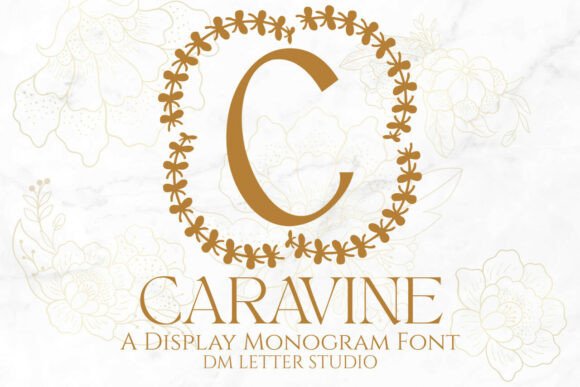
Meet Caravine, the Elegant Monogram Font That’s a Game-Changer for Designers
I’ll never forget the time I was working on a wedding suite project, and my client asked for a custom monogram that would make their special day even more unforgettable. I scoured the internet for the perfect font, but nothing seemed quite right – until I stumbled upon Caravine Monogram Font. This beautiful font turned simple initials into elegant marks that read fast, and I knew I had found the one. In this article, I’ll share my experience with Caravine, its features, and how to make the most of it in your designs.
A Personal Review of Caravine Monogram Font
- ✨ Smooth lines and balanced curves: Caravine’s design ensures that even at small sizes, the font looks crisp and elegant.
- ✅ Open counters for clear readability: This feature makes it perfect for tiny tags, logos, or any application where legibility is crucial.
- 💯 Effortless pairing with other fonts: Caravine works beautifully with soft serifs and modern sans fonts, making it easy to create refined layouts.
- 🔍 Scalability: From jewelry cards to venue signage, Caravine adapts seamlessly to different sizes and applications.
While Caravine is an excellent font, there are a few things to keep in mind:
- ⚠️ Limited use of stylistic alternates: While Caravine has some beautiful alternates, they might not be as extensive as you’d like.
- 🤔 Requires some knowledge of OpenType features: To get the most out of Caravine, you’ll need to familiarize yourself with OpenType features and glyphs.
The Story Behind Caravine Monogram Font
Caravine was designed with the intention of creating a font that would make monograms and initials shine. The designer aimed to craft a font that was both elegant and versatile, suitable for a wide range of applications. With its smooth lines, balanced curves, and open counters, Caravine has become a go-to font for designers and crafters alike.
| Is Caravine suitable for body text? | While Caravine is an elegant font, it’s primarily designed for headlines, monograms, and short text. For body text, you may want to choose a more traditional font. |